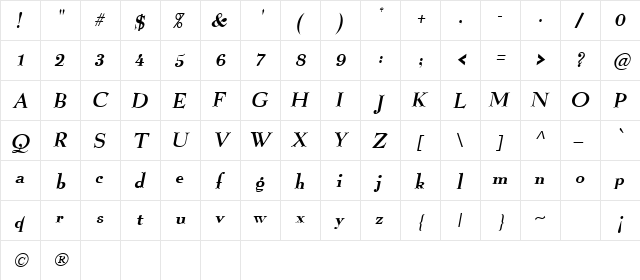
Edith Oblique Font Preview
Edith Oblique
Design Context for Edith Typeface
Edith takes a measured approach to typography — its balanced proportions and neutral character make it a reliable workhorse for both digital and print work. The dynamic lean of this cut emphasises speed and emphasis in any layout.